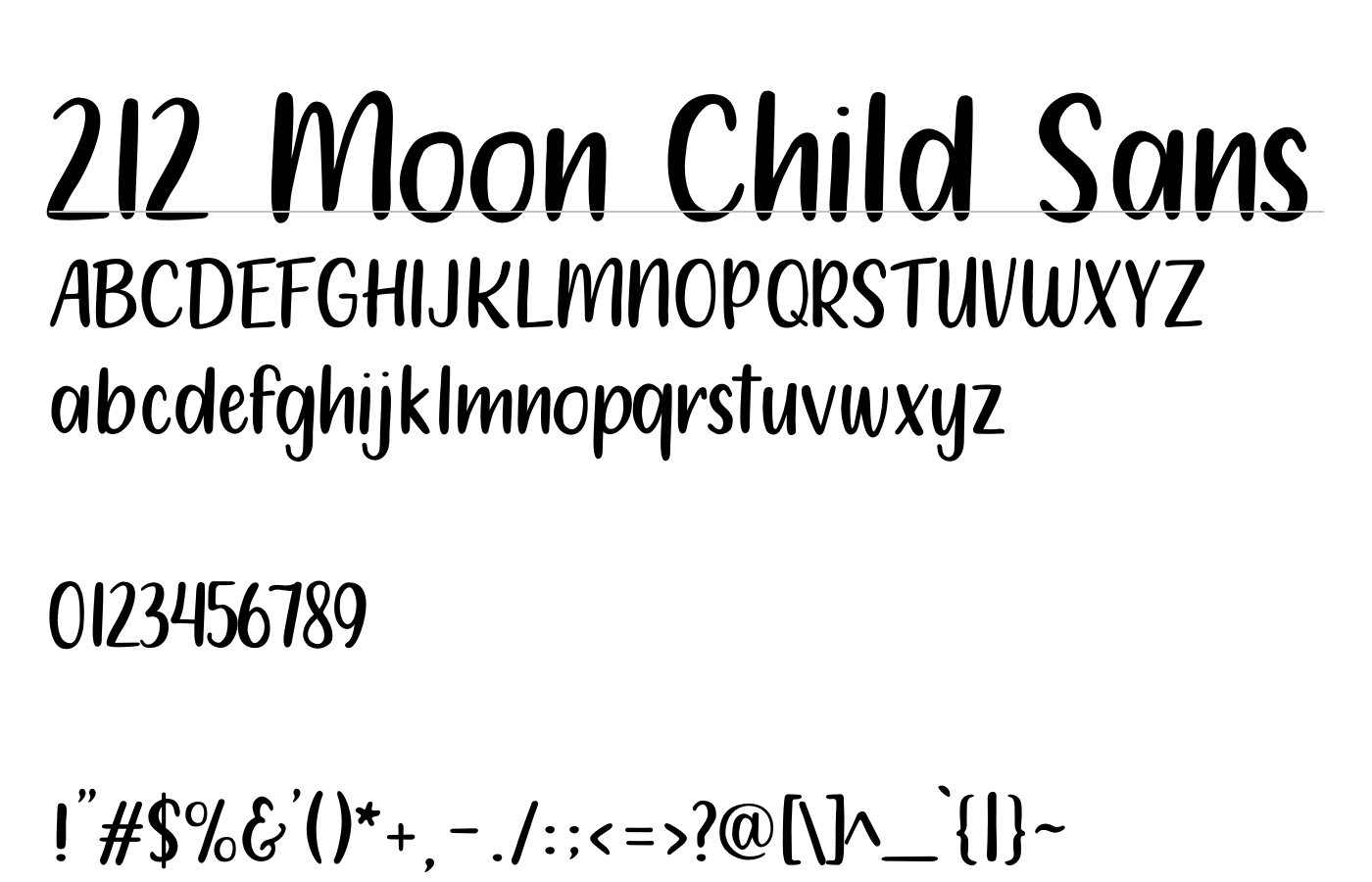
212 Moon Child Sans is a playful and casual sans serif font with a hand-drawn, slightly irregular style that feels friendly and approachable. Its tall, narrow letterforms and moderate stroke contrast give it an informal, whimsical character ideal for projects that want to convey warmth and creativity. This font works well for children’s books, fun branding, invitations, and any design needing a lively and personal touch.
212 Moon Child Sans Font
About 212 Moon Child Sans Font
| Font family | 212 Moon Child Sans Font |
| Designer | Elizabeth McLain |